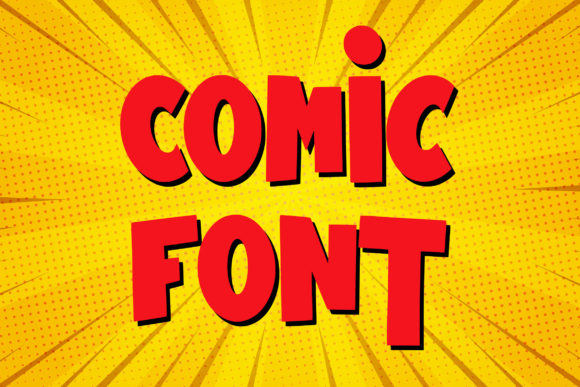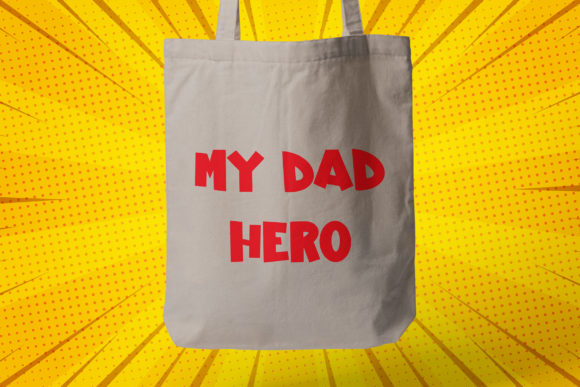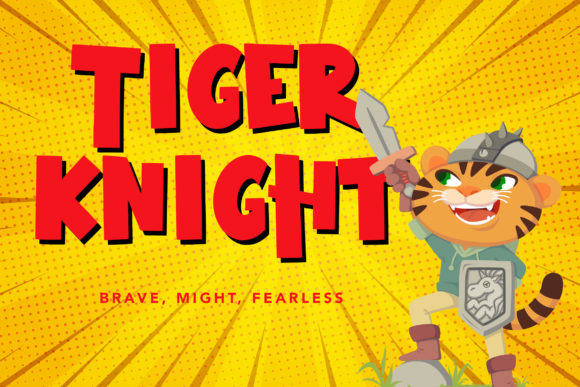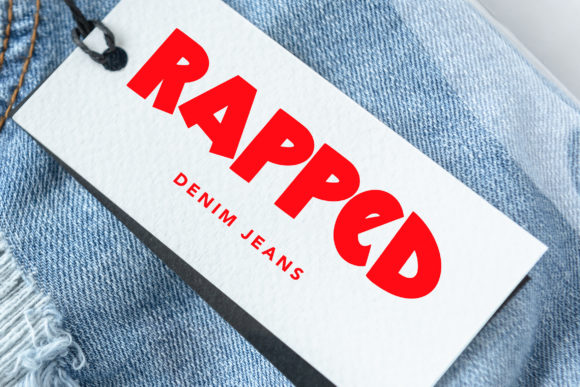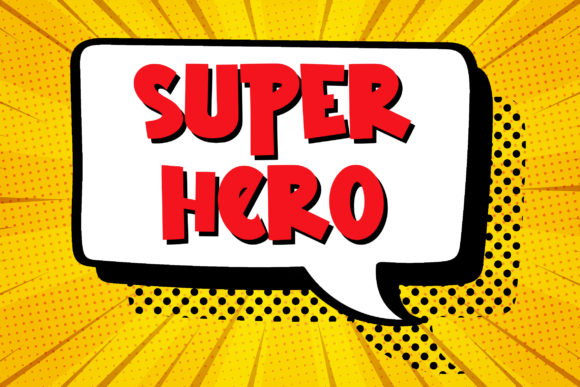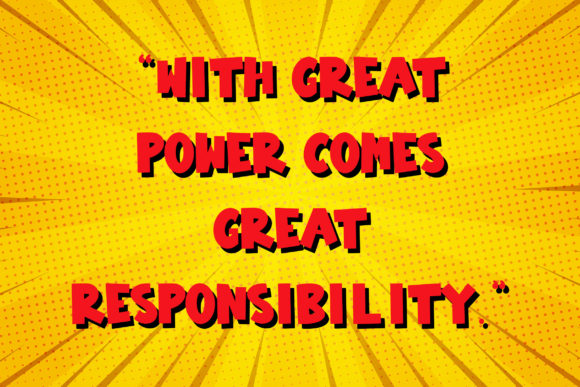
Introduction to Hide and Seek Font
Hide And Seek is a playful and bold display font inspired by comic books and creative cartoons.
It is perfect for projects that need creative and fun typography .